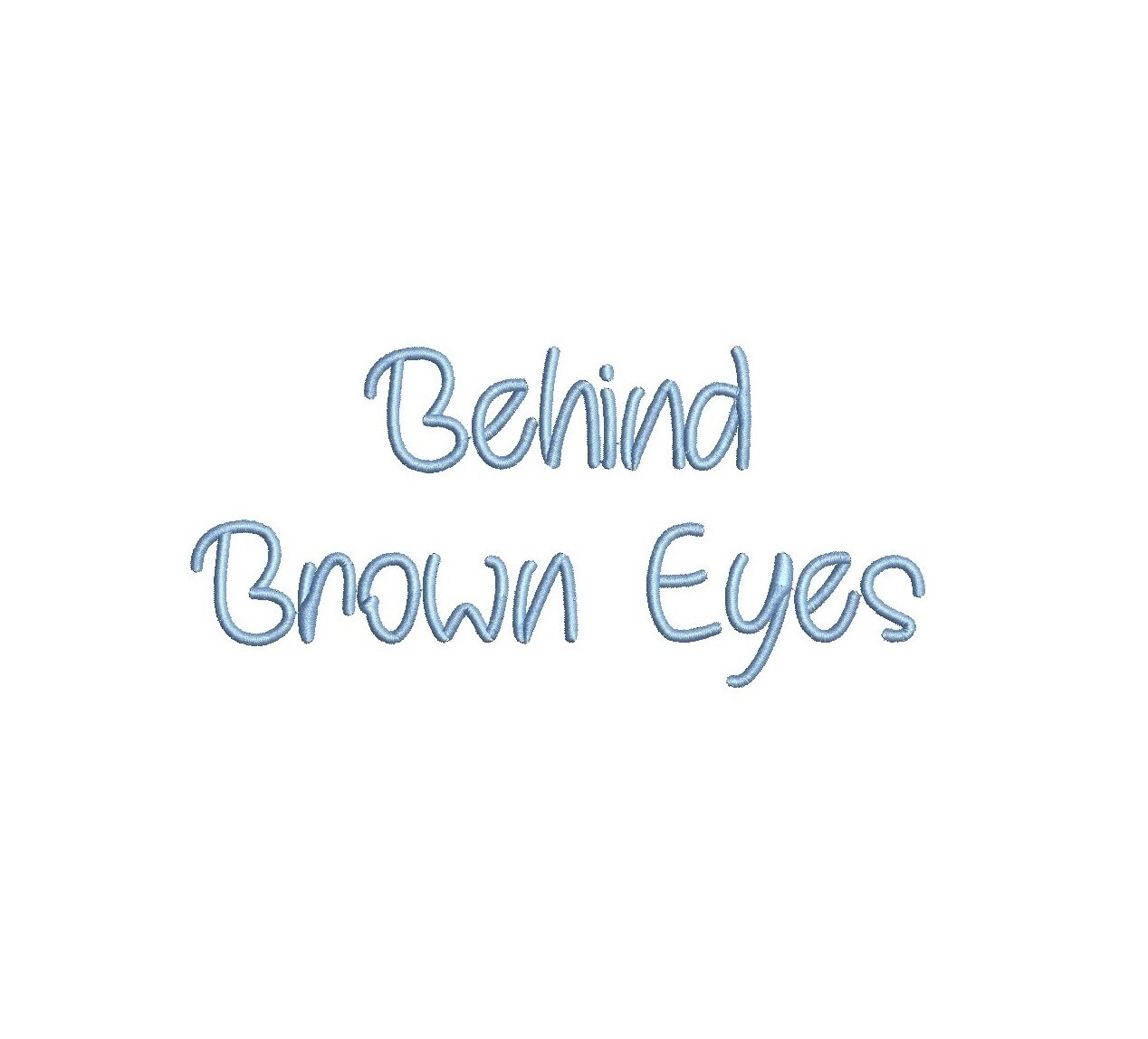
Immerse yourself in emotion with Behind Brown Eyes Regular ESA font, a compelling choice for evoking depth in your designs. This captivating typeface ensures seamless compatibility with Wilcom Studio e4.5.6 and Hatch 3 versions and above. Crafted with meticulous precision, its alluring letterforms and subtle curves imbue your projects with soulfulness. Elevate your designs with Behind Brown Eyes Regular ESA's versatility, perfect for storytelling, logos, branding, and more. Let your creativity flow and express profound narratives with this font, tailored for Wilcom Studio e4.5.6 and Hatch 3 versions and beyond. Behind Brown Eyes ESA - a font that speaks to the heart.